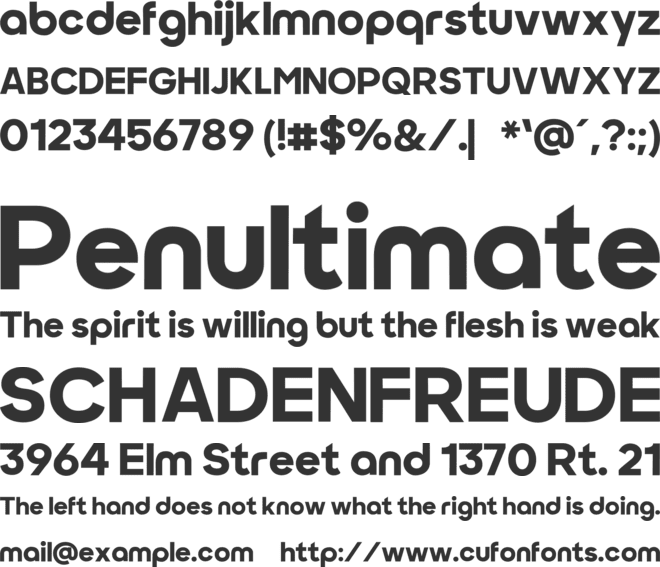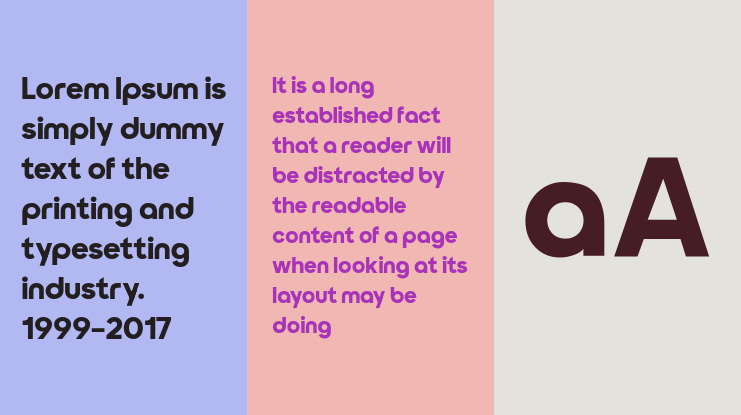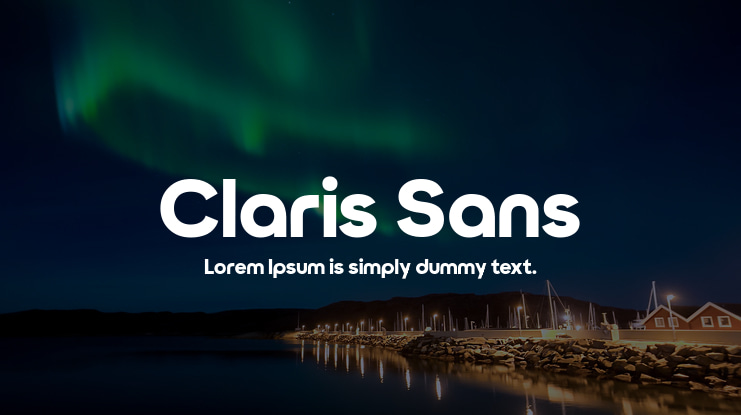
Claris Sans Font
This is a modern take on the extra bold typeface design. With its geometric base and smooth curves the font is a perfect choice for branding, magazines, posters, advertising, web and mobile application design, packaging design and more.